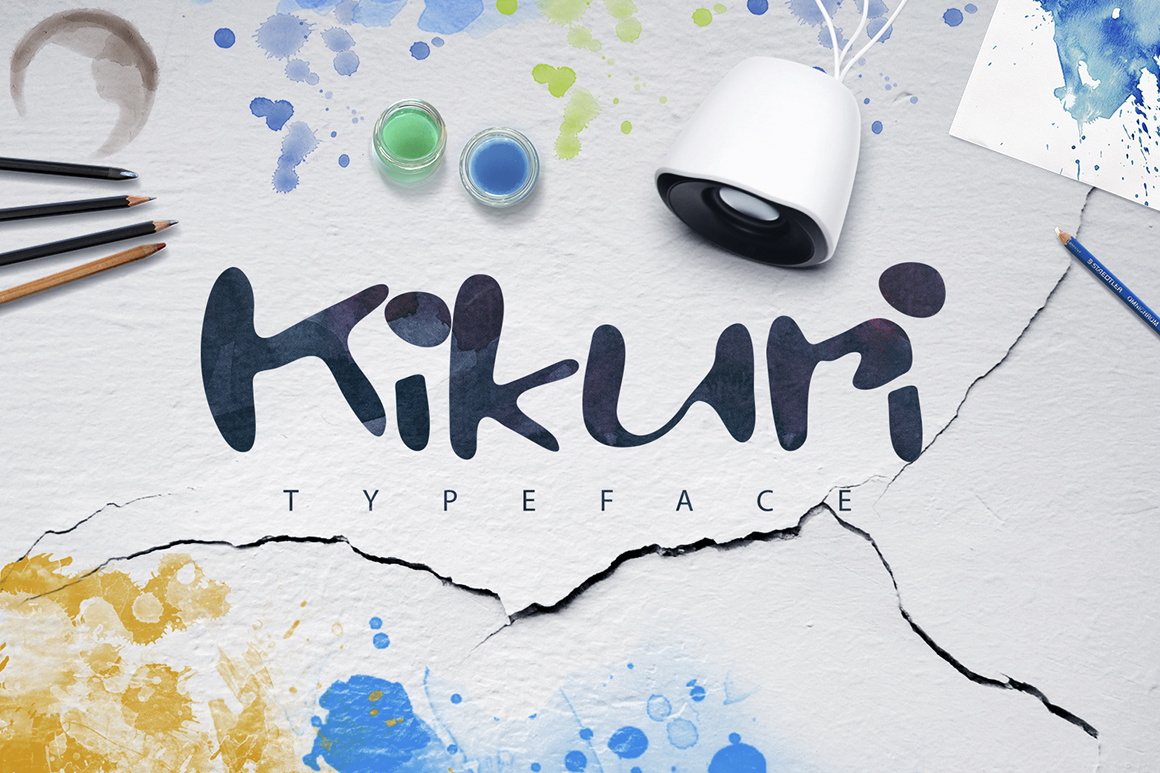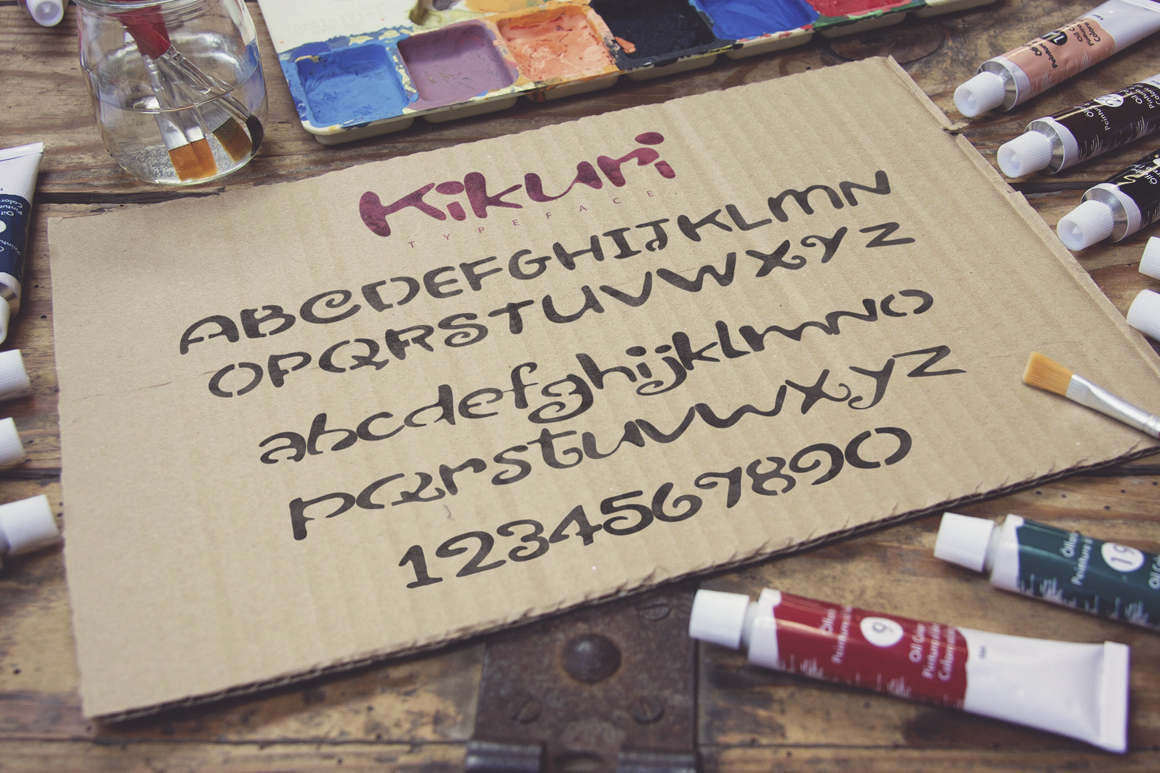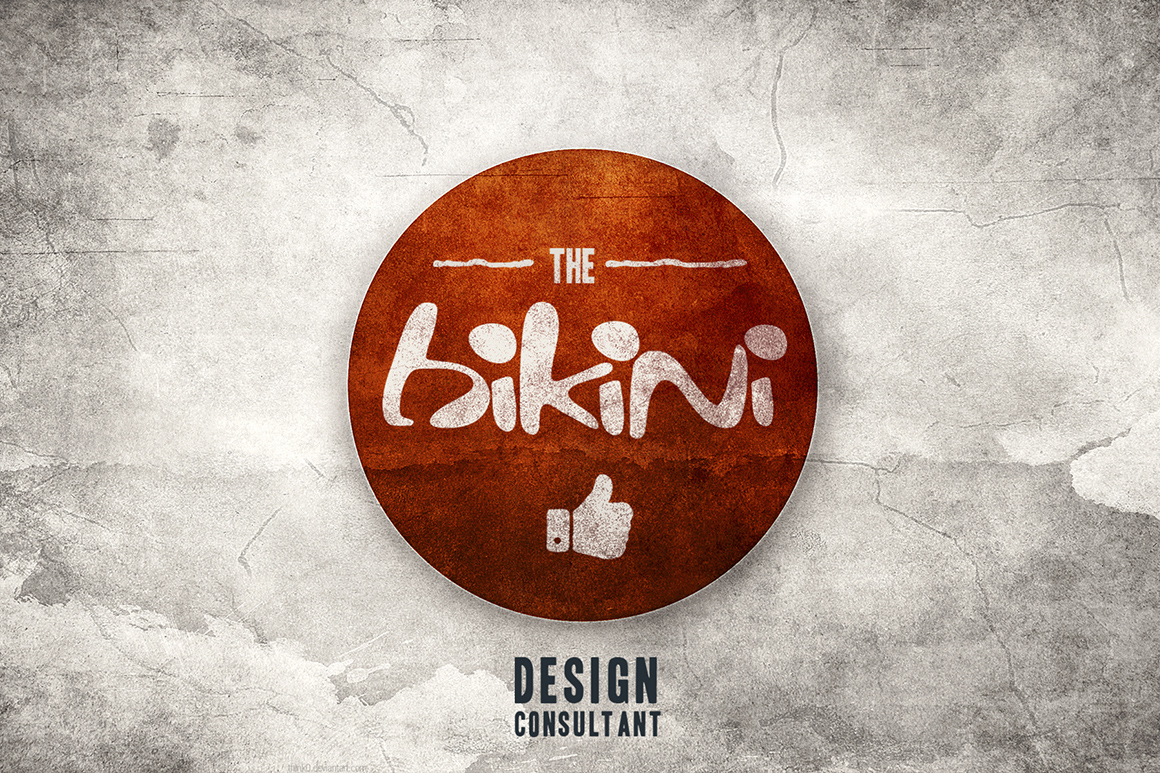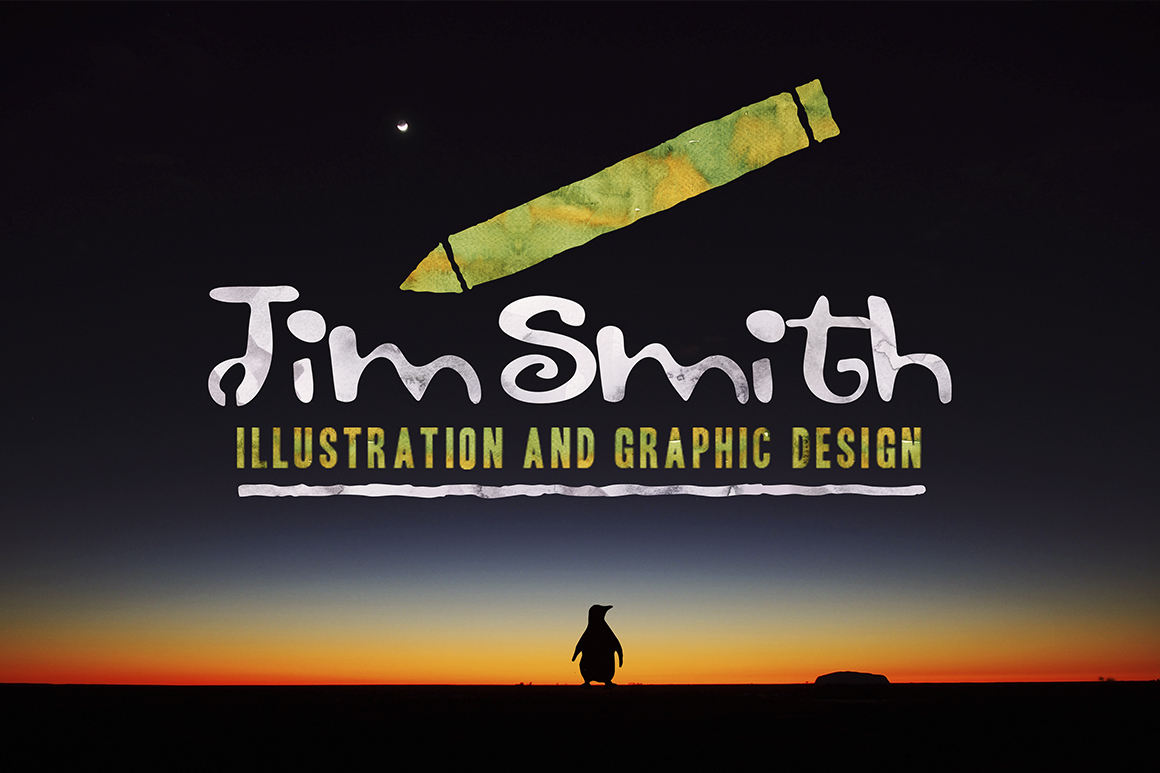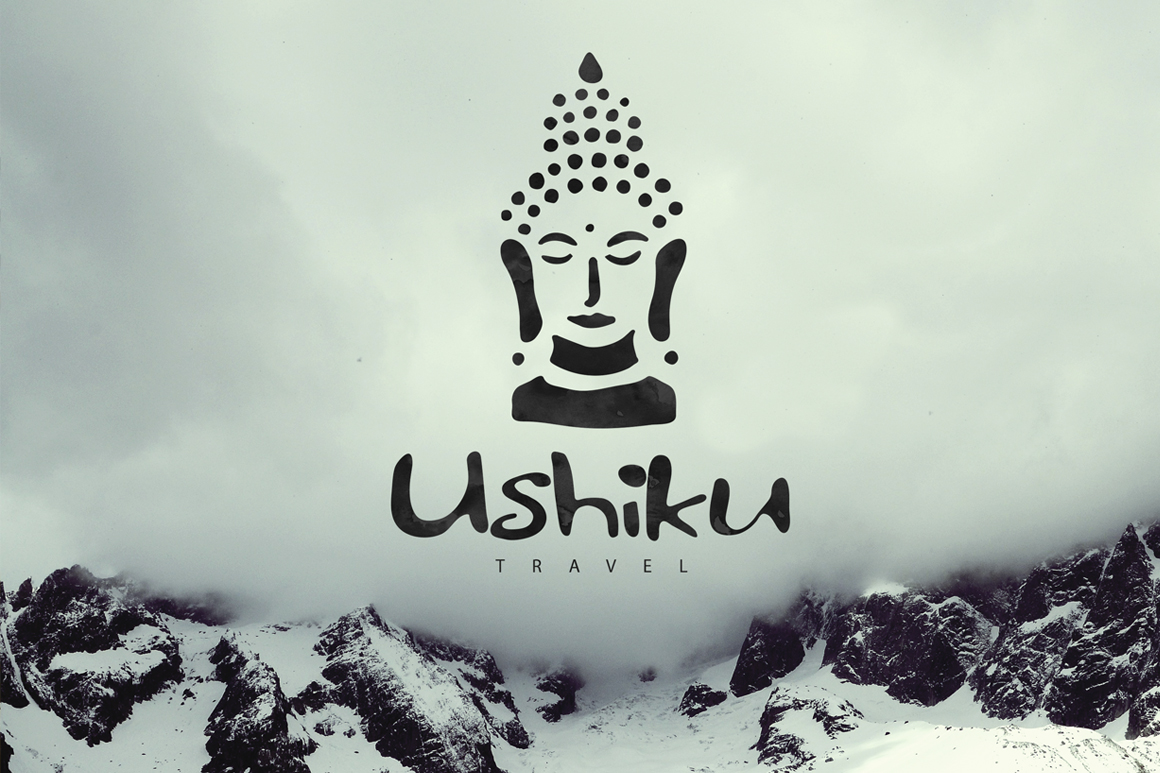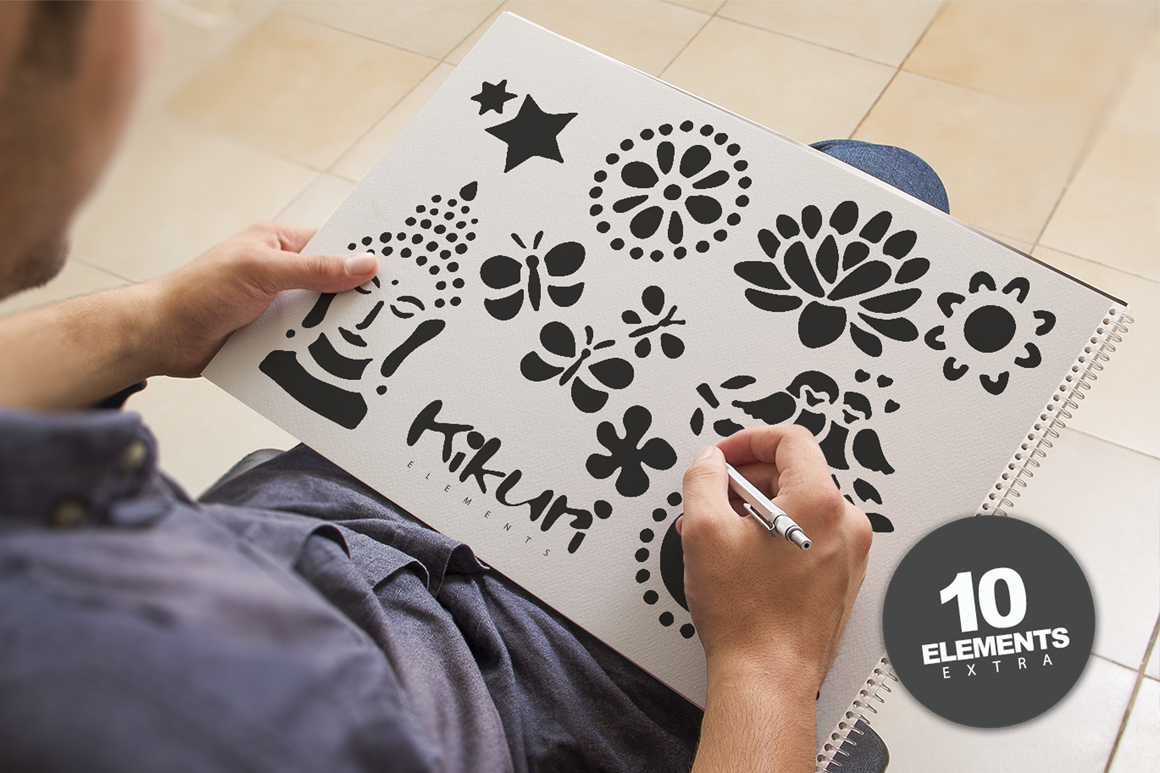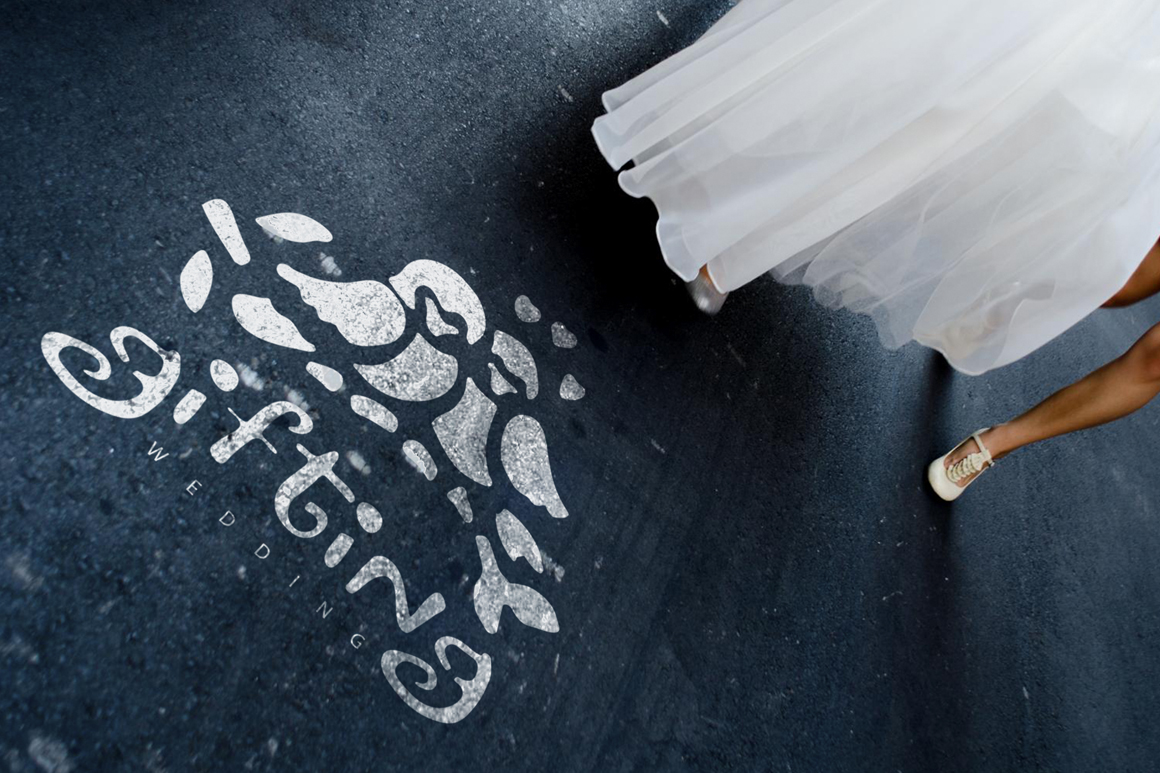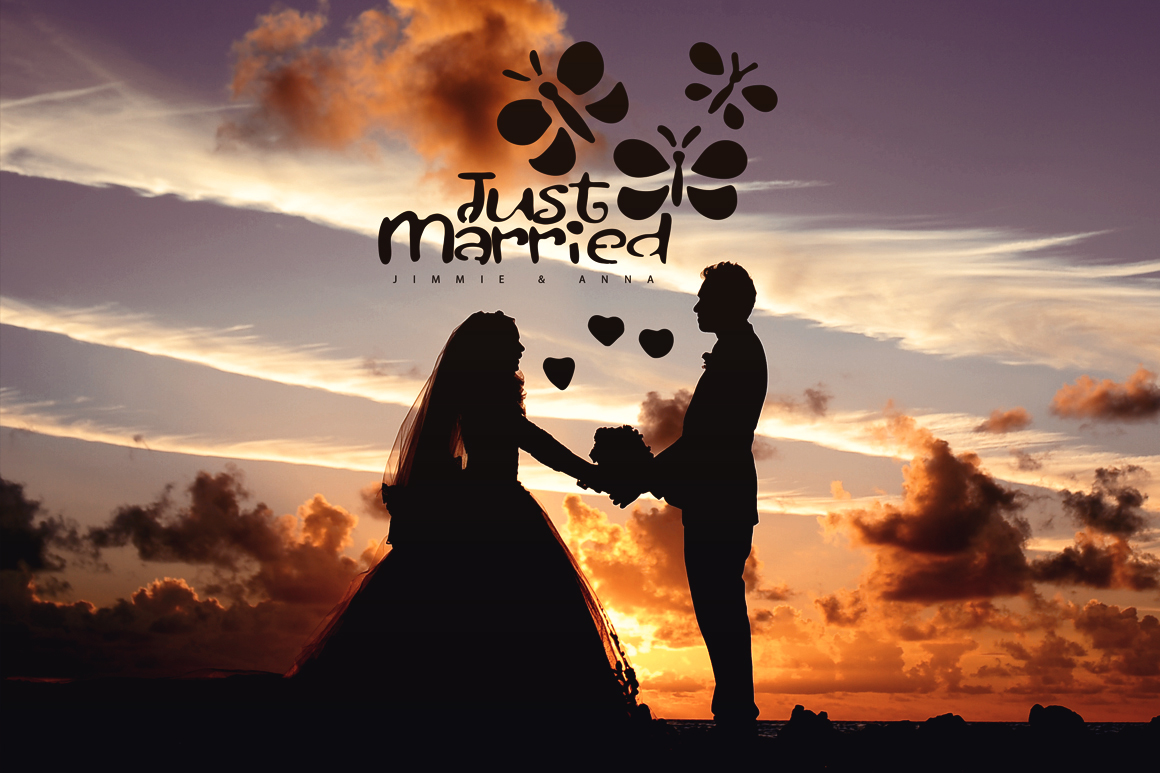
Kikuri Font
About Kikuri Font
Kikuri is a modern and unique script font. This playful font has very smooth rounded letters and really stands out because of it’s asymmetrical letters.
The Kikuri font is a great font for when you are creating unique design that needs to feel different.